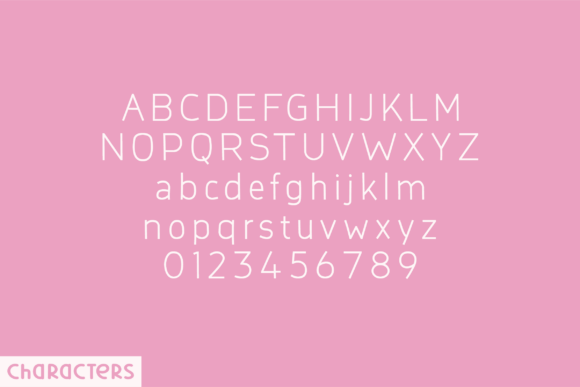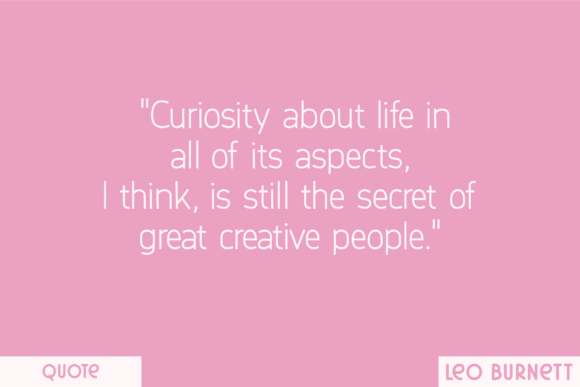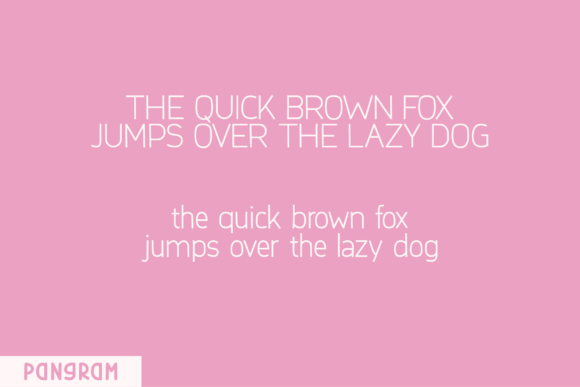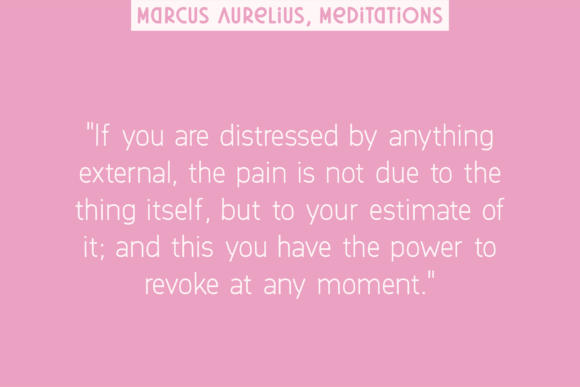
Introduction to Narantia Font
As designers, we’ve all been there – staring at a blank canvas, trying to find the perfect font to bring our creative project to life. It’s in these moments of uncertainty that we often rely on timeless typography to set the tone for our work. And for many, that font is Narantia Font – a versatile and elegant typeface that embodies the perfect blend of minimalism and sophistication.
Narantia Font is more than just a design resource; it’s a key to unlocking a clean and breathable aesthetic that resonates with audiences across various mediums. Its thin stroke weights and generous x-height make it an ideal choice for wellness branding, minimalist editorial layouts, and sophisticated social media overlays.
Key Features of Narantia Font
- High-quality design resource ideal for creative projects, offering a unique and elegant style.
- Features a transparent background, allowing for seamless integration into any design.
- Comes in a range of sizes, from 12pt to 72pt, with a resolution of 300 DPI for high-quality printing.
- Designed to be versatile and suitable for use in various design contexts, from branding to editorial content.
- Includes a range of characters, including Latin, Cyrillic, and Greek alphabets, as well as punctuation and symbols.
Honest Review: Narantia Font
I recently had the chance to work with the Narantia Font for a creative project, and I was impressed with the results. This design resource offers a unique and stylish aesthetic that can add a touch of sophistication to any design.
- Unique and stylish design ✨
- High-quality font for various applications ✨
- Transparent background option for seamless integration ✨
- Limited font styles and weights ⚠️
- No support for certain languages ⚠️
Overall, I’m impressed with the Narantia Font and would recommend it to designers looking for a high-quality, free design resource. While it may have some limitations, the benefits far outweigh the drawbacks, making it an excellent addition to any design arsenal.
Tips for Getting the Most Out of Narantia Font
Use the Narantia Font in conjunction with a transparent background for a sleek, modern look. Experiment with different font sizes and styles to add depth and interest to your design project.
The Narantia Font is ideal for use in logos, branding materials, and other creative projects requiring a high-quality, stylish font.